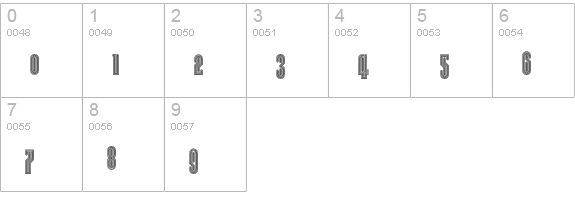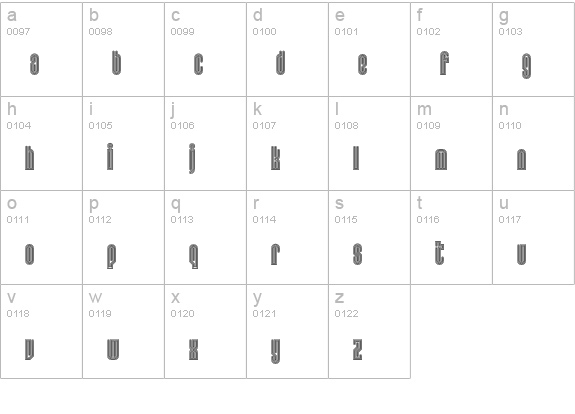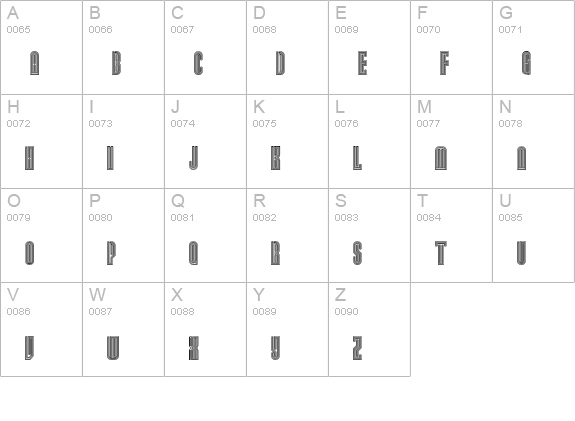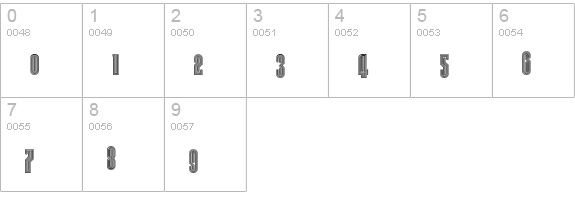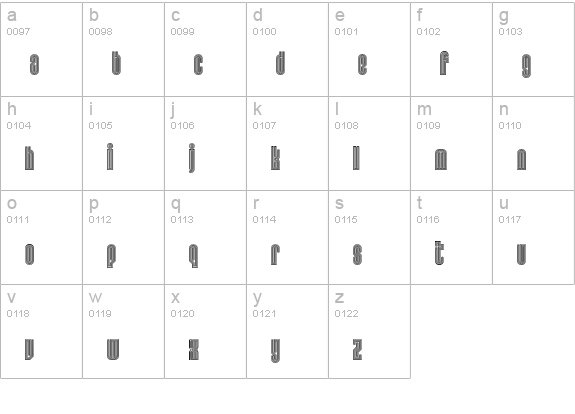
Lusta-TwoHundredSans is a modern and stylish font that exudes sophistication and elegance. With its clean lines and sleek design, this font is perfect for a wide range of design projects, from branding to editorial design. The versatility of Lusta-TwoHundredSans makes it a must-have font for any designer looking to make a statement. What's even better is that Lusta-TwoHundredSans is available for free download at FontsMarket.com. This means you can easily access this stunning font and elevate your designs without breaking the bank. Don't miss out on the opportunity to add Lusta-TwoHundredSans to your font library today and take your designs to the next level.